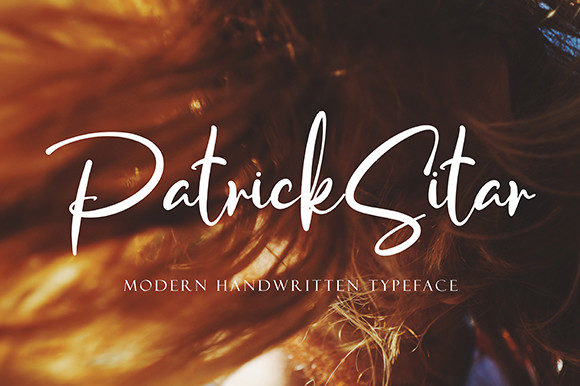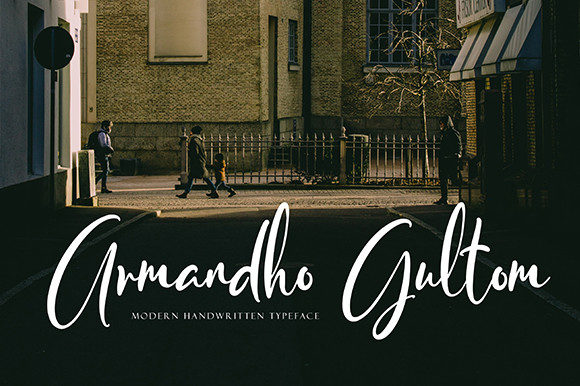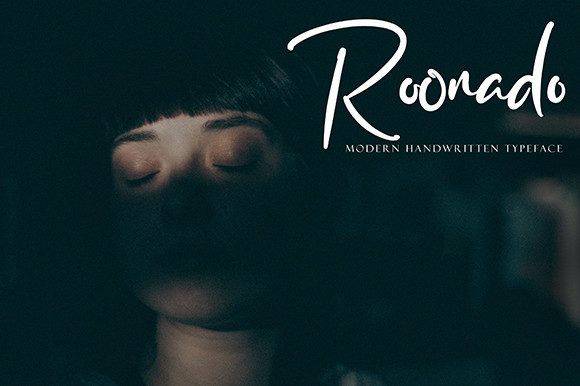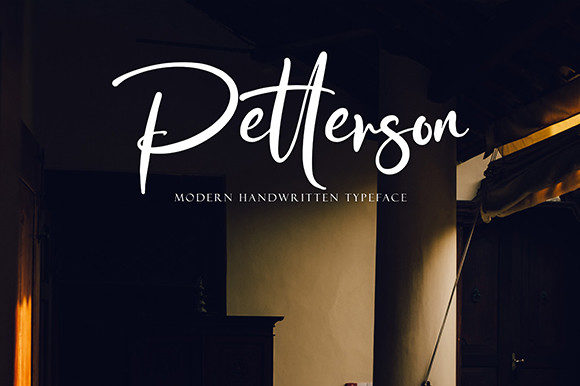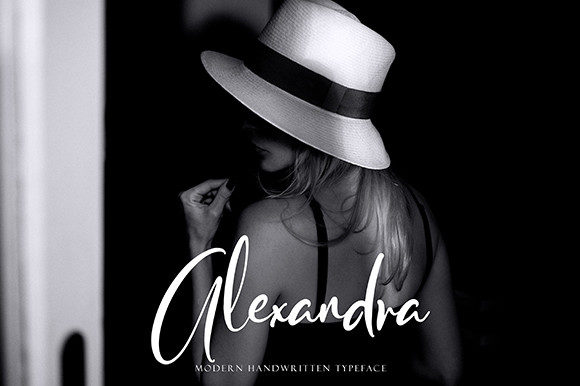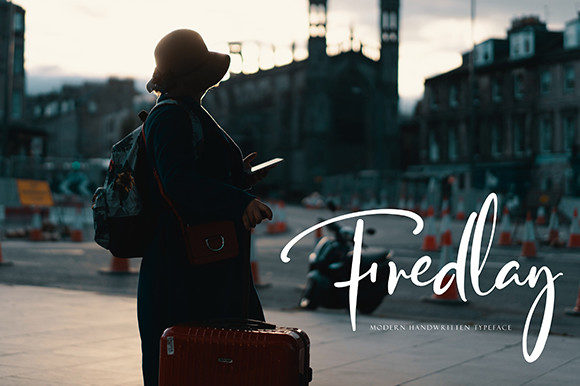
The Elegance of Angista Font: A Designer’s New Best Friend
I still remember the project that led me to discover Angista Font. I was working on a branding project for a luxury wellness client, and I was struggling to find the perfect font that exuded elegance and sophistication. The client was particular about the font style, and I had to ensure that it aligned with their high-end brand image. That’s when I stumbled upon Angista Font, and it instantly became my go-to choice.
An Honest Review of Angista Font
What I Love About Angista Font
- ✨ Delicate and elegant handwritten style that adds a touch of sophistication to any design
- ✅ Well-balanced characters that make it easy to read and understand
- 💫 Beautifully crafted to match a wide range of designs, from minimalist to luxurious
- 🎨 Versatile font that can be used for various design projects, including branding, packaging, and digital media
While Angista Font is an excellent choice for many design projects, there are a few things to keep in mind:
- 🤔 Limited use of bold weights, which may not be suitable for designs that require a strong, bold font
- ⚠️ Some characters may not be suitable for small font sizes, so it’s essential to test the font before finalizing your design
- Experiment with OpenType features, such as ligatures and stylistic alternates, to add more creativity to your design
The Backstory of Angista Font
Angista Font was designed with the goal of creating a beautiful and elegant handwritten font that could be used in a variety of design projects. The designer aimed to create a font that was both refined and approachable, making it perfect for designs that require a touch of sophistication. The font’s name, Angista, is derived from the Greek word for ” delicate” or “elegant,” reflecting its refined and sophisticated style.
| Font Name | Angista Font |
| Author | Pineungtype & Missinklab |
| What is Angista Font? | Angista Font is a delicate, elegant, and flowing handwritten font designed for use in a variety of design projects. |
| What design projects is Angista Font suitable for? | Angista Font is suitable for a wide range of design projects, including branding, packaging, digital media, and more. |
| Is Angista Font easy to read? | Yes, Angista Font is designed to be easy to read, with well-balanced characters and a clear, elegant style. |